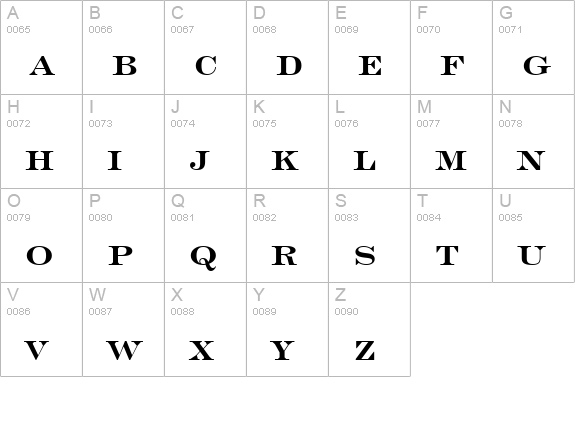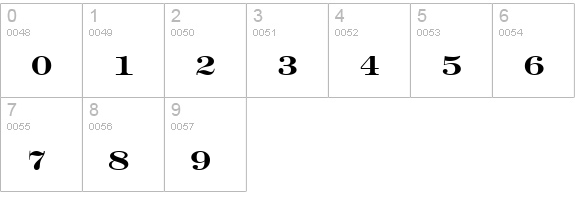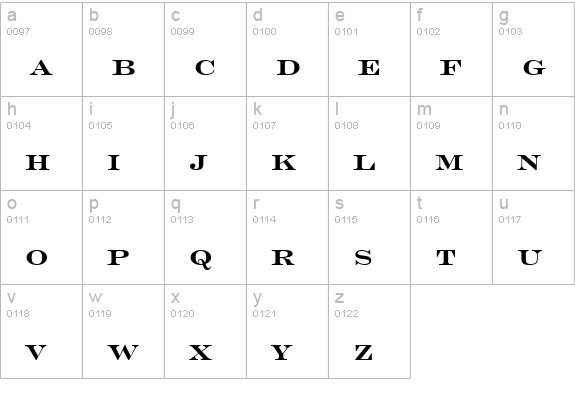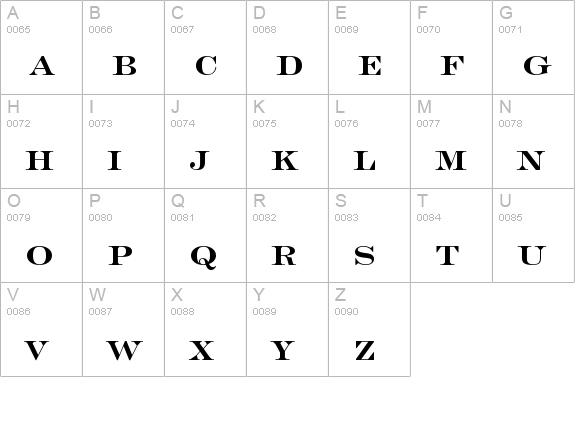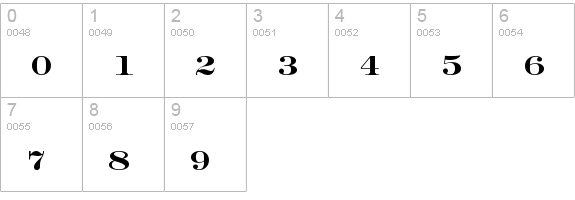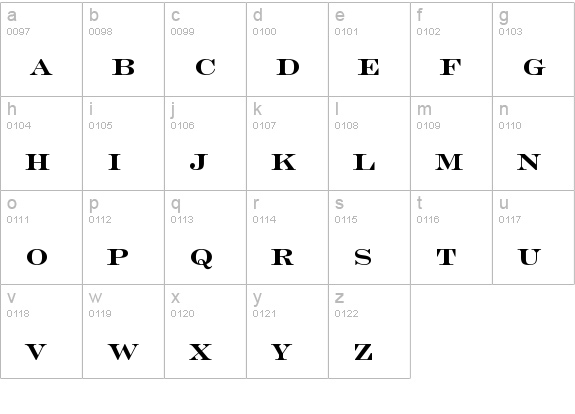
Engravers' Roman Bold BT Font Details
Engravers' Roman Bold BT is a strong, high-contrast variant in the Engravers' typeface family \xE2\x80\x94 well suited to headlines, attention-grabbing titles, and strong calls-to-action.
Engravers' Roman Bold BT font is a striking and versatile typeface that exudes elegance and sophistication. Its bold and distinctive letterforms make it perfect for creating impactful headlines and eye-catching designs. With its timeless appeal and classic style, this font is a favorite among designers and creatives looking to make a statement. The Engravers' Roman Bold BT font is not only visually appealing but also highly functional, making it ideal for a wide range of design projects. Whether you're working on branding materials, advertising campaigns, or editorial layouts, this font will add a touch of sophistication and professionalism to your work. Best of all, Engravers' Roman Bold BT font is available for free download at FontsMarket.com. This means you can easily access and use this beautiful typeface in your projects without any cost. Don't miss out on the opportunity to enhance your designs with the timeless elegance of Engravers' Roman Bold BT font. Download it today and elevate your design projects to the next level.